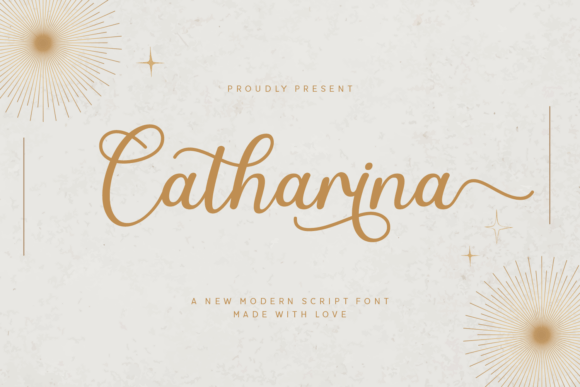
Crafting Elegant Designs with Catharina Font
As a designer, have you ever found yourself staring at a blank page, struggling to bring your vision to life? It’s a feeling we’ve all been there. The blank canvas can be intimidating, but it’s also an opportunity to create something truly special. For me, it’s moments like these that remind me why I love typography so much.
Enter Catharina Font, a beautiful script font that adds a touch of elegance to any design. Its clean lines and smooth curves make it perfect for adding a stylish touch to your projects. Whether you’re working on a wedding invitation, a logo, or a branding package, Catharina Font is sure to impress. Its unique swashes give it an artistic flair that sets it apart from other fonts, making it a valuable asset for any designer looking to add some sophistication to their work.
With Catharina Font, the possibilities are endless. Its versatility and style make it a go-to choice for designers who want to create something truly memorable. Whether you’re a seasoned pro or just starting out, this font is sure to become a trusted companion in your creative journey.
Catharina Font Key Features
- Font Family: Catharina
- Font Style: Script, Calligraphy
- Character Set: Supports Latin, Cyrillic, and Greek alphabets
- Unique Characteristics: Hand-drawn, elegant, and highly customizable with ligatures and swashes
Catharina Font Review
As a designer, I was excited to dive into the world of Catharina Font, but my experience was a mixed bag. Here’s what I liked and what I didn’t.
- Unique Character Set: Catharina Font boasts a distinctive character set that stands out in a crowded market. The letterforms are elegant and refined, making it perfect for projects that need a touch of sophistication.
- Excellent Legibility: This font is highly legible, even at smaller font sizes. The clear letter spacing and well-balanced design make it easy to read, even for lengthy blocks of text.
- Limited Font Sizes: Catharina Font is best suited for body text and titles. It may not be the best choice for headlines or display fonts, as it can become too elegant and lose its impact.
- Lack of Variations: The font family is relatively small, which can limit its versatility in different design contexts.
Overall, Catharina Font is a solid choice for designers who want to add a touch of elegance to their projects. While it may not be the most versatile font, its unique character set and excellent legibility make it a great option for body text and titles. With some careful consideration, it can be a valuable addition to any designer’s toolkit.
Tips for Getting the Most Out of Catharina Font
Use the Catharina font for titles, headings, and emphasis in your designs.
Pair the Catharina font with other elegant fonts for a sophisticated look.
Alternatives to Catharina Font for Designers
Playfair Display is a high-end, elegant serif font that is perfect for luxury brands and high-end designs. It features intricate details and ornate flourishes, making it ideal for use in titles and headings.
Comparison to Catharina Font: While Catharina Font has a more modern and clean look, Playfair Display is more ornate and traditional. Playfair Display is better suited for formal and sophisticated designs, whereas Catharina Font is more versatile and can be used in a variety of contexts.
Lato is a modern sans-serif font that is highly legible and versatile. It features a clean and minimalist design, making it perfect for use in body text and titles.
Comparison to Catharina Font: Lato is more minimalist and modern compared to Catharina Font, which has a more feminine and elegant look. Lato is better suited for use in digital designs, such as websites and apps, whereas Catharina Font is more suitable for print designs.
Alegreya is a modern serif font that features a unique blend of traditional and contemporary elements. It is perfect for use in titles and headings, and is highly legible in both print and digital formats.
Comparison to Catharina Font: Alegreya has a more modern and sophisticated look compared to Catharina Font, which is more elegant and traditional. Alegreya is better suited for use in designs that require a unique and modern touch, whereas Catharina Font is more suitable for use in traditional and classic designs.